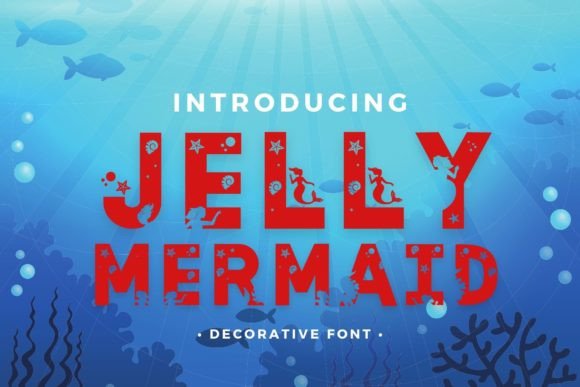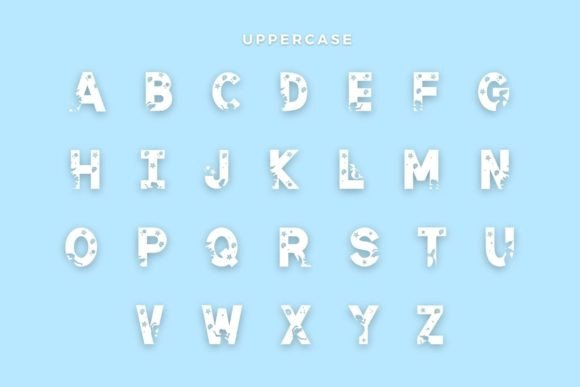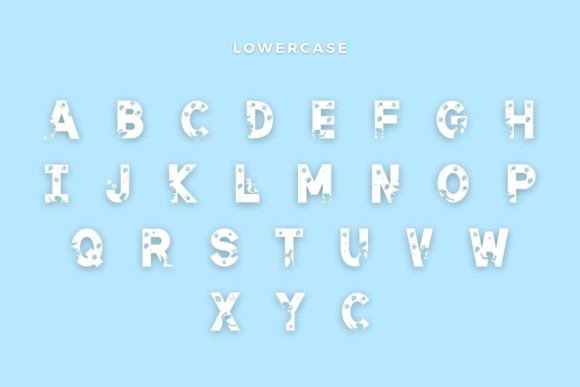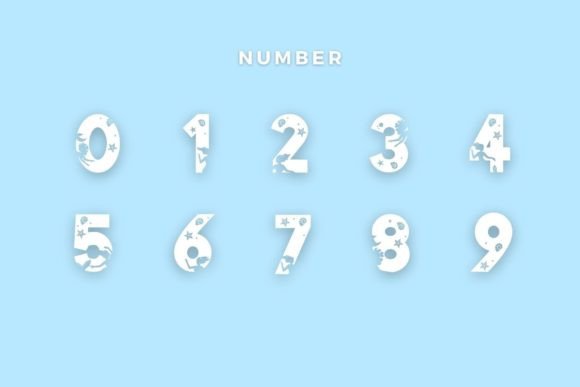
Jelly Mermaid Font: A Playful Decorative Font for Unique Designs!
About the Jelly Mermaid Font
Welcome to the world of Jelly Mermaid Font, a typeface that will inspire your next great project. Jelly Mermaid is a fun and unique decorative font. It embodies playfulness and authenticity and is the perfect choice for various projects, such as blog posts, logos, branding, ads, invitations, greeting cards, planners, photo albums, decorations, and much more. Add it to any of your designs, and enjoy the results!
Jelly Mermaid’s playful, slightly whimsical style makes it ideal for headlines, short text blocks on branding materials, eye-catching packaging designs, and posters. It works particularly well for projects targeting a younger demographic or those emphasizing fun and creativity. Avoid using it for body text or long paragraphs; its decorative nature reduces readability in extended passages. It’s also not suitable for user interfaces (UI) requiring high legibility.
Consider pairing Jelly Mermaid with a clean sans-serif like Lato for a balanced contrast, or a classic serif such as Garamond for a more sophisticated feel. A geometric sans-serif like Montserrat could also work well, providing a modern counterpoint to Jelly Mermaid’s organic forms.
The font’s overall personality is undeniably playful and friendly, making it a strong choice for brands aiming for a lighthearted and approachable image.
Jelly Mermaid Font Usage Examples
Jelly Mermaid Font Example